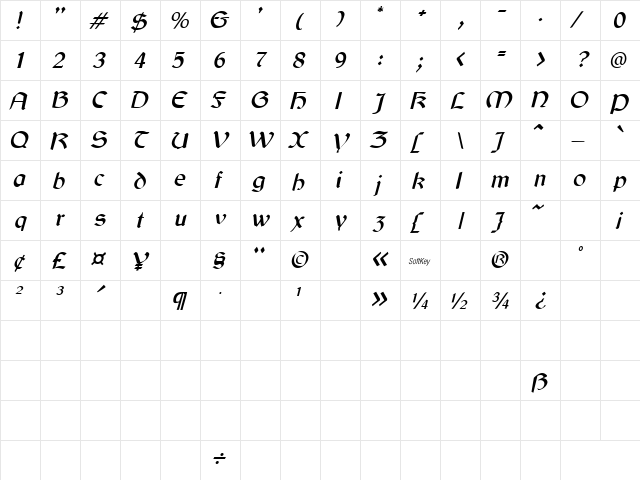
Nightfall 2 Oblique
Nightfall 2 is a composed and adaptable typeface that performs quietly and consistently across a wide range of design contexts. Its italic angle brings a sense of urgency and motion to the letterforms.
Pro Tip: Use Nightfall 2 for emphasis, pull quotes, and subheadings where its slanted energy can add rhythm to the layout.